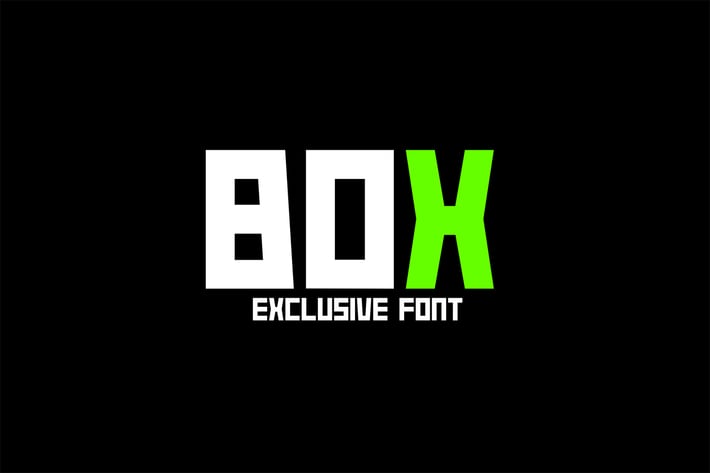
Box Typeface Font
This is the best clean and fresh sans serif font design. You can use this for commercial work, like banner, t-shirt, and other design what you need.
This font comes with 2 style. Regular and Outline: